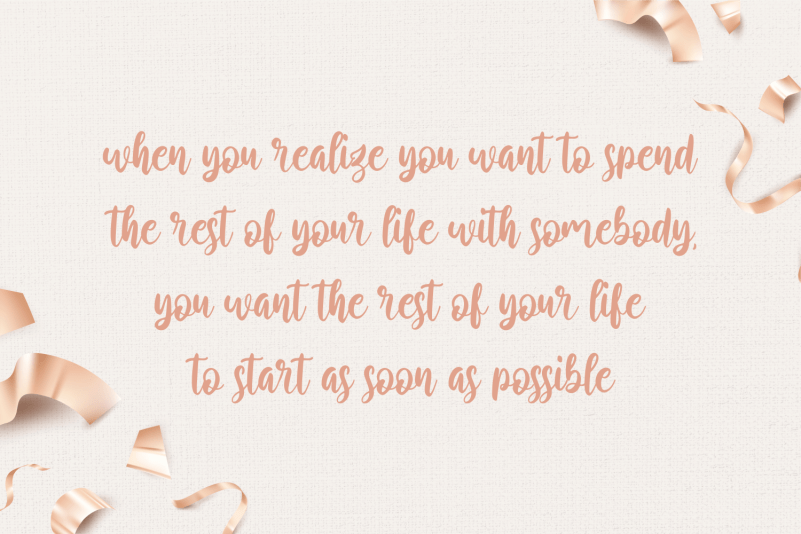
Rosetype Font
Rosetype Script Font is a lovely and timeless handwritten font. It is the best choice for creating eye catching logos, branding and quotes. Every letter has a unique and beautiful touch, which will make your design come alive!
Forberas Foundry